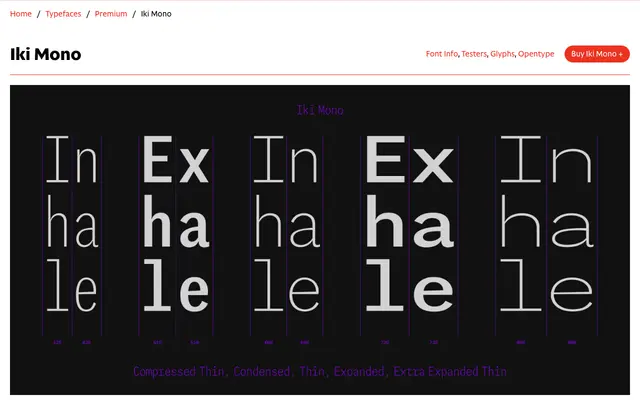
Iki Mono
CAST · Beatrice D'Agostino · 2017
A monospaced grotesque by Beatrice D'Agostino spanning five widths from Compressed to Extra Expanded, designed equally for publishing and coding environments.
Built across six weights and five widths with slanted counterparts for each, the family runs to over forty styles plus variable font versions. Letterforms draw on 19th-century grotesque details and carry a degree of contrast unusual in monospaced type, while the non-slanted cuts apply a subtle leftward inclination to the letters. The name comes from the Japanese word for breath, and the design handles the constraints of fixed-width spacing with evident care rather than compromise.
A monospaced typeface with a fixed-width system across all widths and weights; the sans serif structure with slight contrast and letterform details drawn from 19th-century grotesques places it firmly in the grotesque mono subcategory.